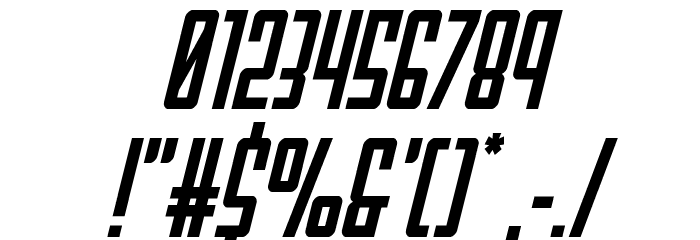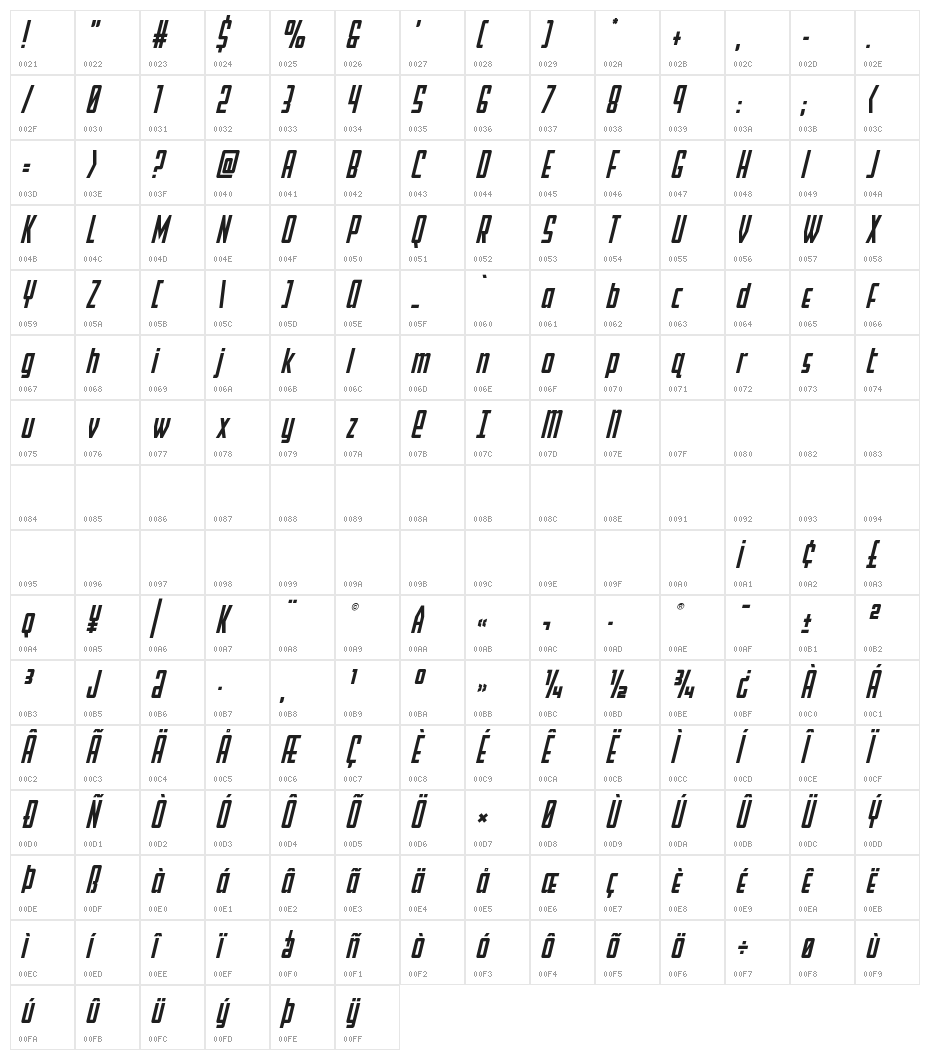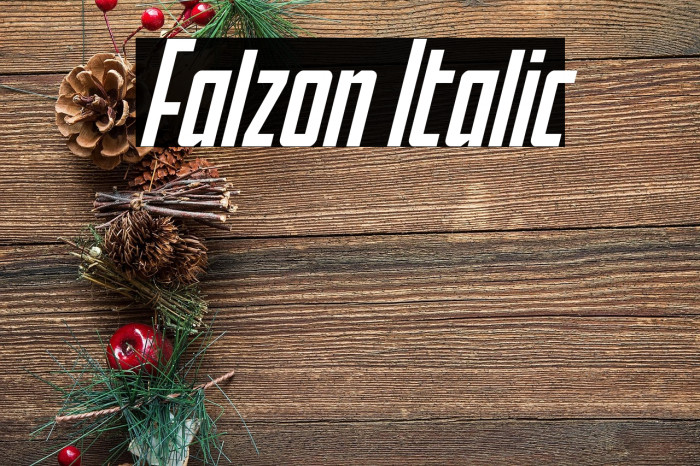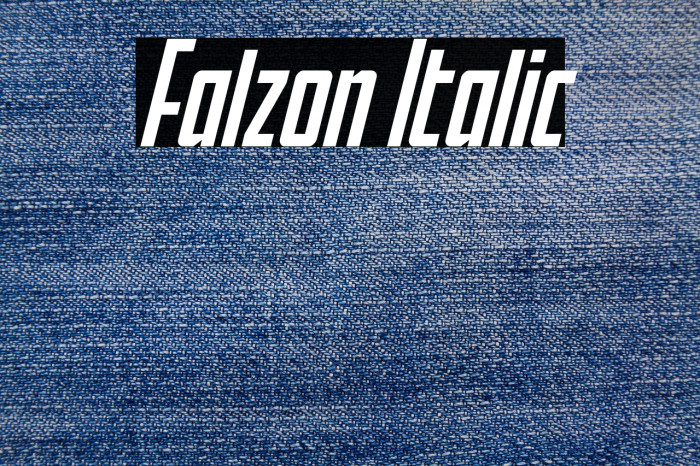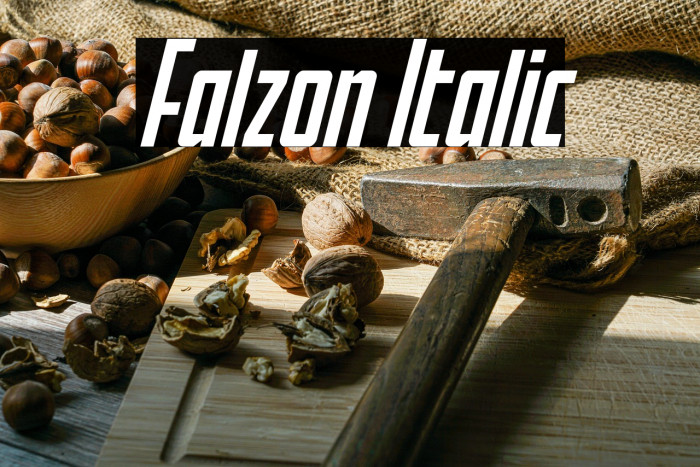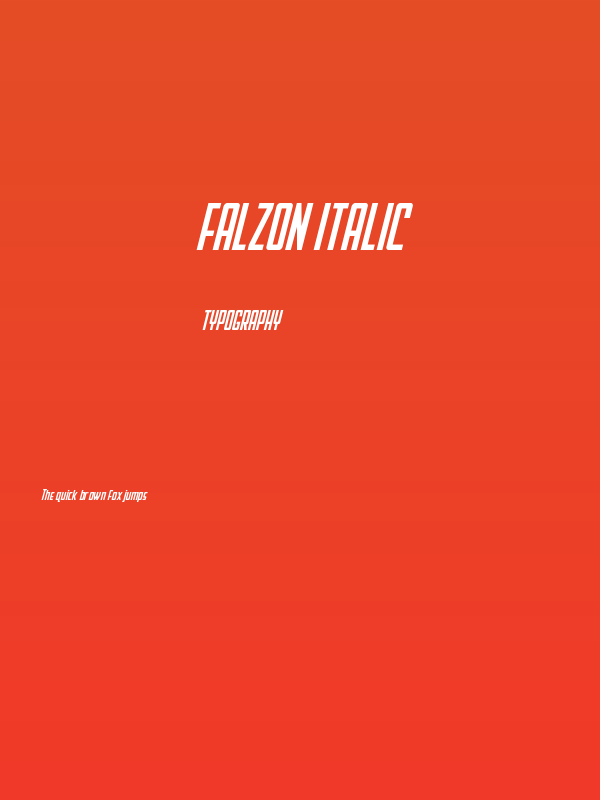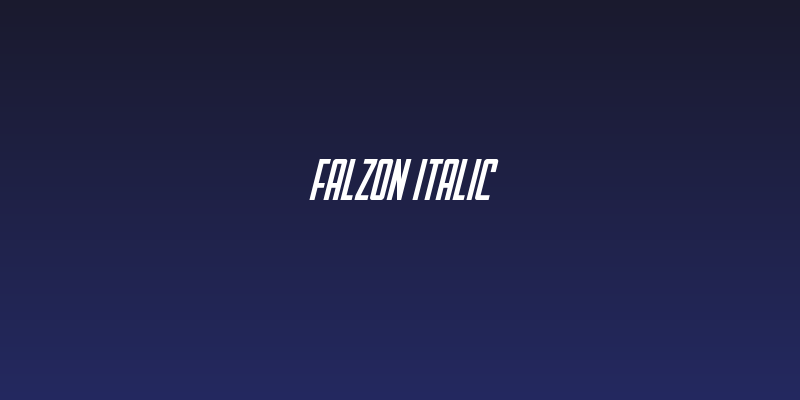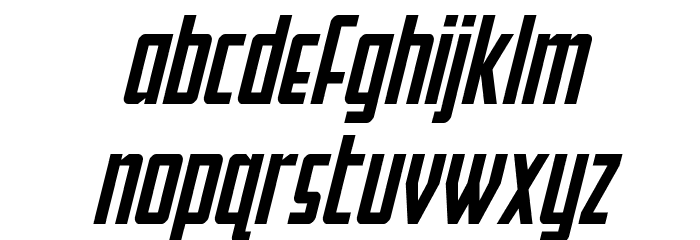
Falzon Italic Font
Falzon Italic Description
This font features a bold, italicized style with a strong, dynamic presence. The letters are slanted, giving a sense of motion and energy. The uppercase and lowercase characters maintain a consistent width, contributing to a cohesive appearance. The numerals and special characters are designed to match the overall aesthetic, ensuring uniformity across all elements. The strokes are thick, providing a high contrast that enhances readability and impact. This font is ideal for projects that require a modern and assertive look.
| Proposed Projects | Suitable for sports branding, dynamic posters, modern advertisements, and impactful headlines. |